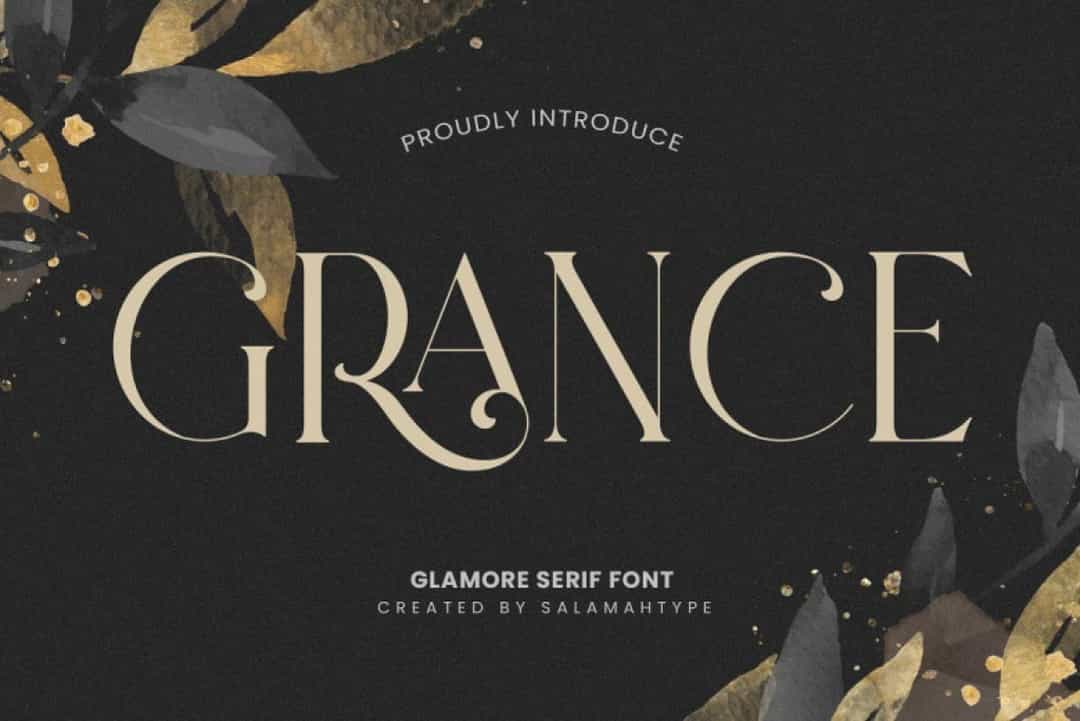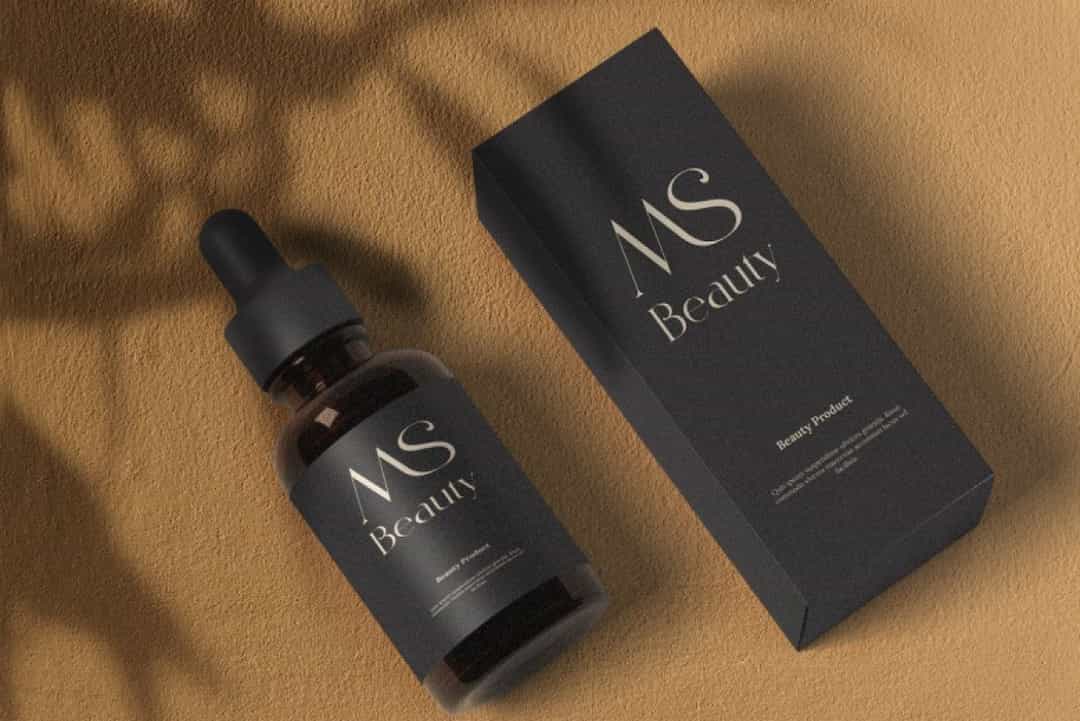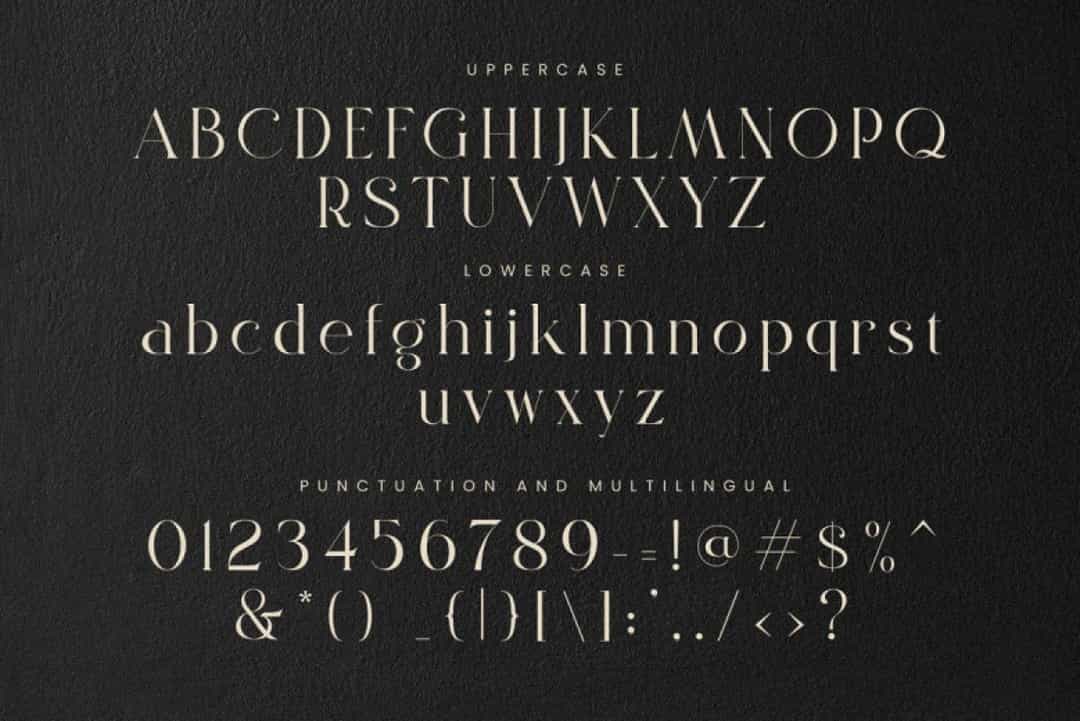
Discover Grance Font, part of the Serif collection—a versatile and unique font perfect for adding a personal touch to your projects. Download it for free and enjoy crafting designs with style, from invitations to social media posts. This font is available exclusively for personal use, giving you the freedom to create without limits. Unlock your creativity with Grance Font today!
“GRANCE” is our brand new serif typeface – an elegant and sleek style perfect for modern logos, websites and brands as well as social media quotes and social media quotes on social media accounts, wedding invitations or stationery designs – to meet any need you might have!